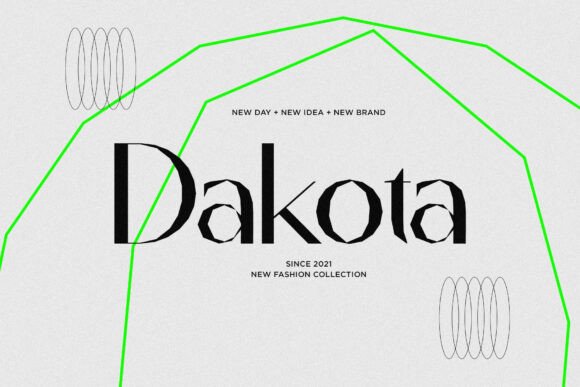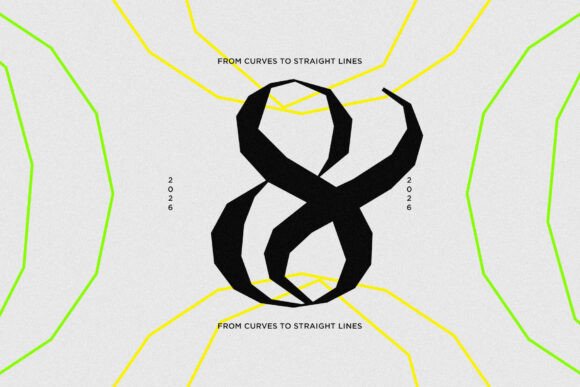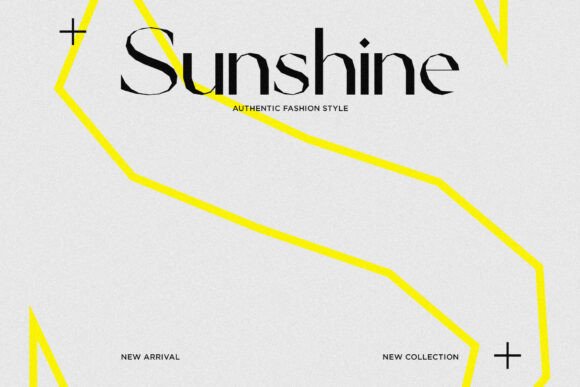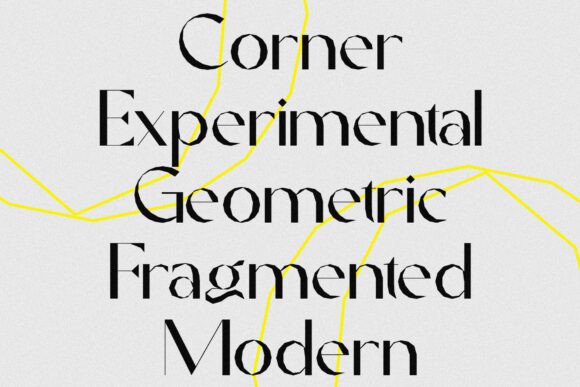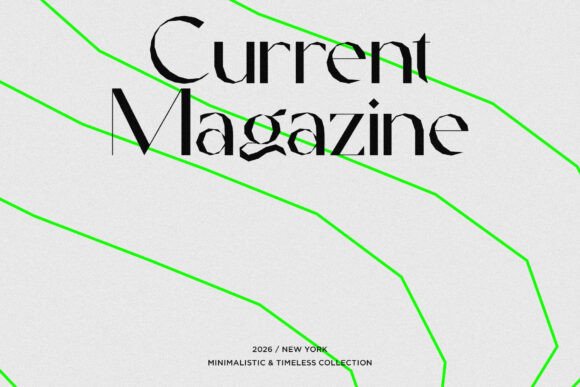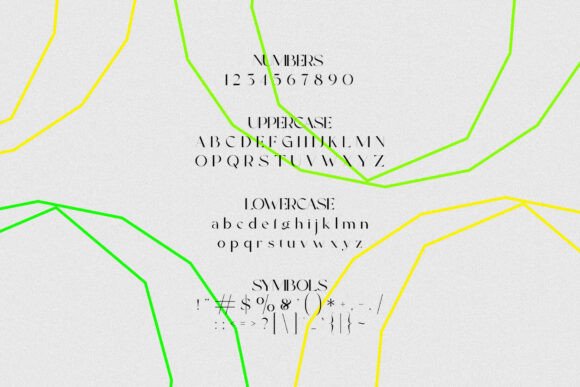
Introduction to Division Font
As designers, we’ve all been there – staring at a blank page, trying to bring our creative vision to life. The cursor blinks, taunting us to start, but the perfect font eludes us. That’s where the Division Font comes in – a modern geometric sans that’s sure to give your next project the boost it needs.
With its confident corners and disciplined structure, Division Font is the perfect design resource for any high-quality creative project. Its precise geometry and subtle angular cuts create a visual attitude that’s both bold and approachable. Whether you’re working on a branding campaign or crafting a website interface, Division Font performs just as well at large display sizes as it does in tight layouts.
What sets Division Font apart is its unique balance of technical clarity and visual personality. Its transparent background and free download make it an attractive choice for designers who value flexibility and ease of use. By incorporating Division Font into your next project, you’ll be able to create a cohesive and unmistakably designed look that’s sure to leave a lasting impression.
Key Features of Division Font
- High-quality design resource with a transparent background, perfect for creative projects.
- Unique characteristics: geometric shapes, clean lines, and modern aesthetic.
Honest Review: Division Font
As a designer, I’m always on the lookout for high-quality fonts that can elevate my creative projects. Recently, I had the chance to work with the Division Font, and I must say it’s been a game-changer.
Here are some of the things that I love about the Division Font:
- ✨ Its sleek and modern design makes it perfect for minimalist-inspired projects.
- ✨ The font is highly legible, making it great for body text as well as headlines.
- ⚠️ The font is quite thin, which can make it difficult to read at very small sizes.
- ⚠️ There are limited language support options, which may be a concern for designers working on multilingual projects.
Overall, I’m thoroughly impressed with the Division Font. Its unique design and high-quality performance make it a valuable addition to any designer’s toolkit. While it may have a few limitations, I believe it’s well worth the download.
Division Font
The Division Font is a versatile, high-quality design resource perfect for various creative projects. This free download features a clean, modern design with a transparent background, making it easy to integrate into any visual content.
Tips for Getting the Most Out of Division Font
To get the most out of Division Font, use it in combination with bold, eye-catching graphics and colors. Experiment with different font sizes, styles, and arrangements to create visually appealing and engaging content.
Division Font is ideal for a variety of creative projects, including business presentations, marketing materials, social media graphics, and more. Its clean design and transparent background make it perfect for layering and customization in various design applications.
Q: Is the Division Font suitable for digital and print projects?
The Division Font is designed to be versatile and suitable for both digital and print projects. Its high-quality design ensures crisp and clear rendering on various devices and print materials. You can use it for designing logos, graphics, and other visual elements for your creative project.